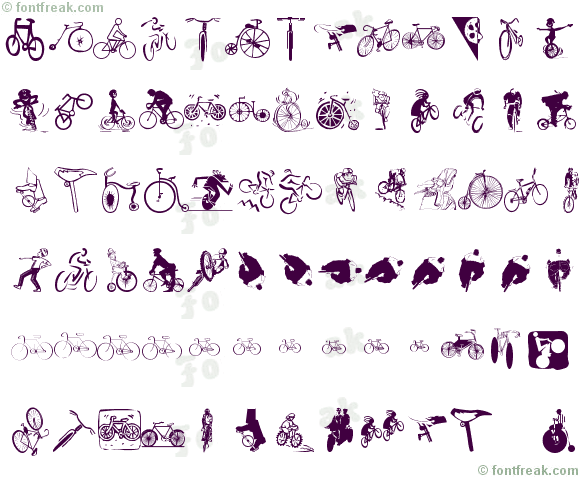
Cycling
The Cycling font by Manfred Klein is a unique display typeface that perfectly captures the spirit of biking and outdoor adventure. This font features a playful, cartoonish style, making it an excellent choice for projects that aim to convey energy and movement. With its moderate stroke weight and minimal contrast, Cycling is accessible and straightforward, allowing for easy readability while maintaining an engaging aesthetic. The spacing is carefully designed, ensuring clarity without sacrificing its whimsical charm. The decorative elements within the font include illustrations of cyclists and bicycles, which add character and thematic relevance to any design.
Best suited for a variety of creative applications, the Cycling font shines in contexts such as sports event posters, cycling club branding, and adventure-themed websites. It can also be effectively used in merchandise like T-shirts and stickers aimed at biking enthusiasts. Additionally, this font is ideal for social media graphics targeting outdoor activities, helping content creators connect with their audience in a fun and visually appealing way.
The target audience for the Cycling font includes graphic designers looking to inject some personality into their projects, small business owners in the sports or leisure industries, and content creators focused on lifestyle and outdoor themes. This font not only serves a practical purpose but also resonates with individuals passionate about cycling and outdoor activities.
What sets the Cycling font apart is its distinctive blend of functionality and playful design. The balance between readability and thematic expression makes it a standout choice for any project related to cycling or outdoor adventure. For those seeking to bring a fresh, energetic vibe to their designs, the Cycling font is available as a Cycling font free download, making it accessible for both personal and commercial use.